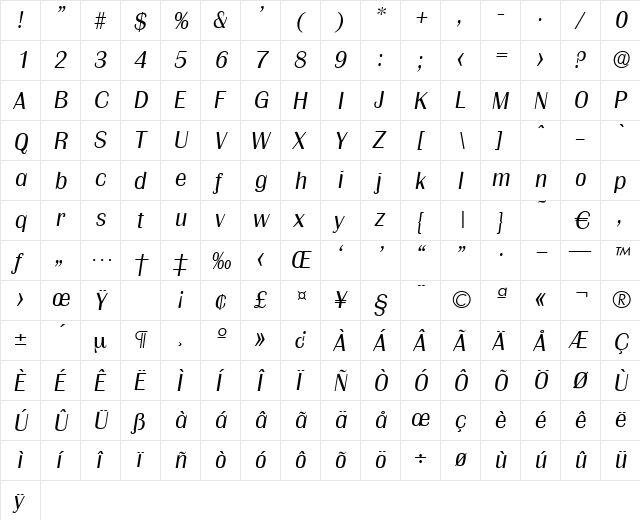
Grenoble-LightIta Regular
Design Context for Grenoble-LightIta Typeface
Grenoble-LightIta offers clean, dependable letterforms without strong stylistic allegiance, making it a practical choice for designers who need flexibility. The delicate stroke weight brings airiness and refinement to layouts.